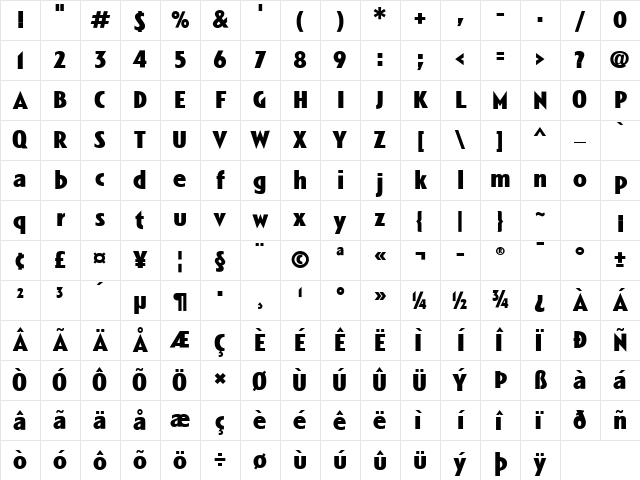
LTSpitz Book Bold
Design Context for LTSpitz Book
LTSpitz Book is a composed and adaptable typeface that performs quietly and consistently across a wide range of design contexts. Its bold stroke weight gives it real presence on the page.
Pro Tip: Use LTSpitz Book in both headline and body roles to test its range before committing to a single application.